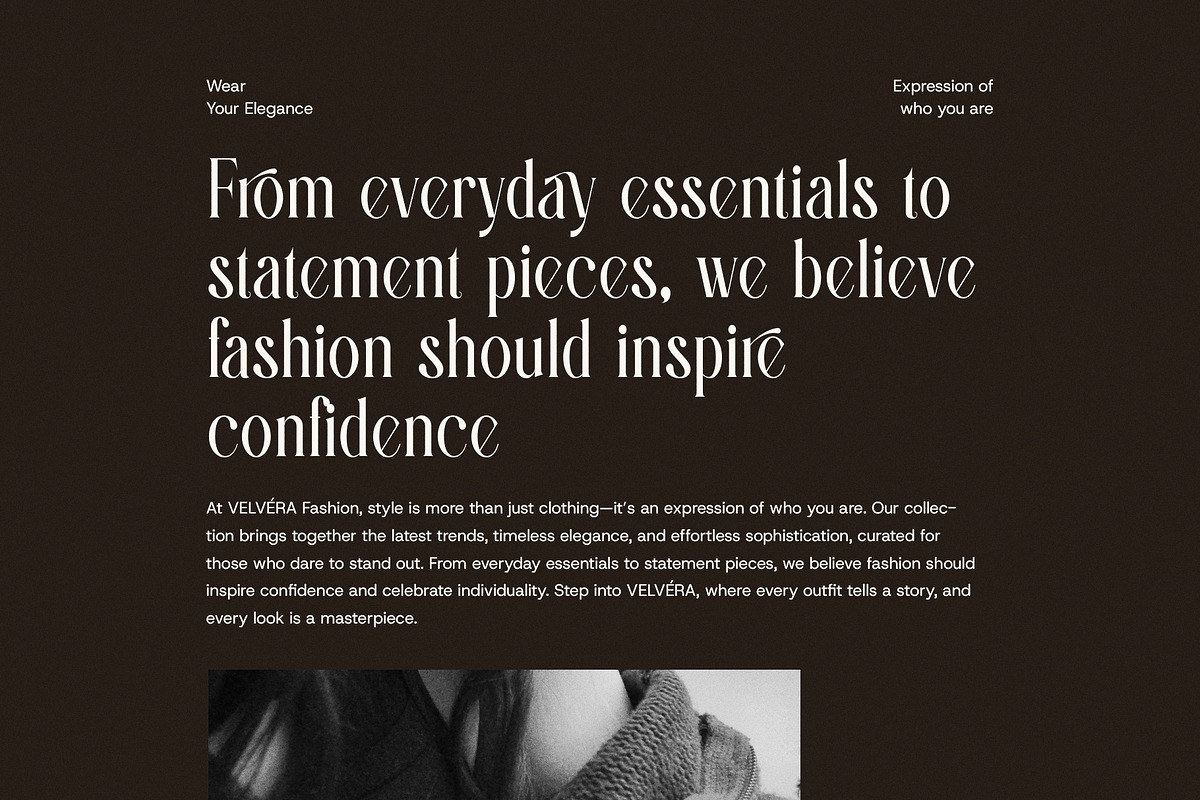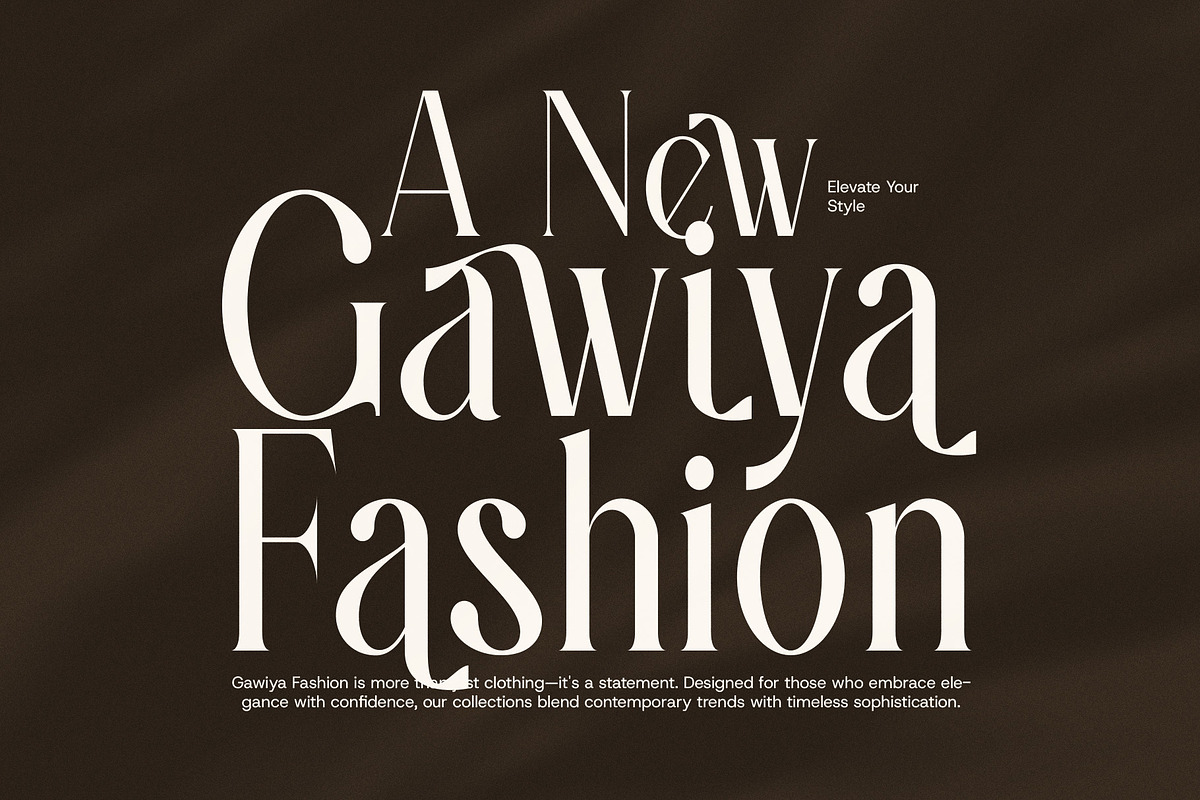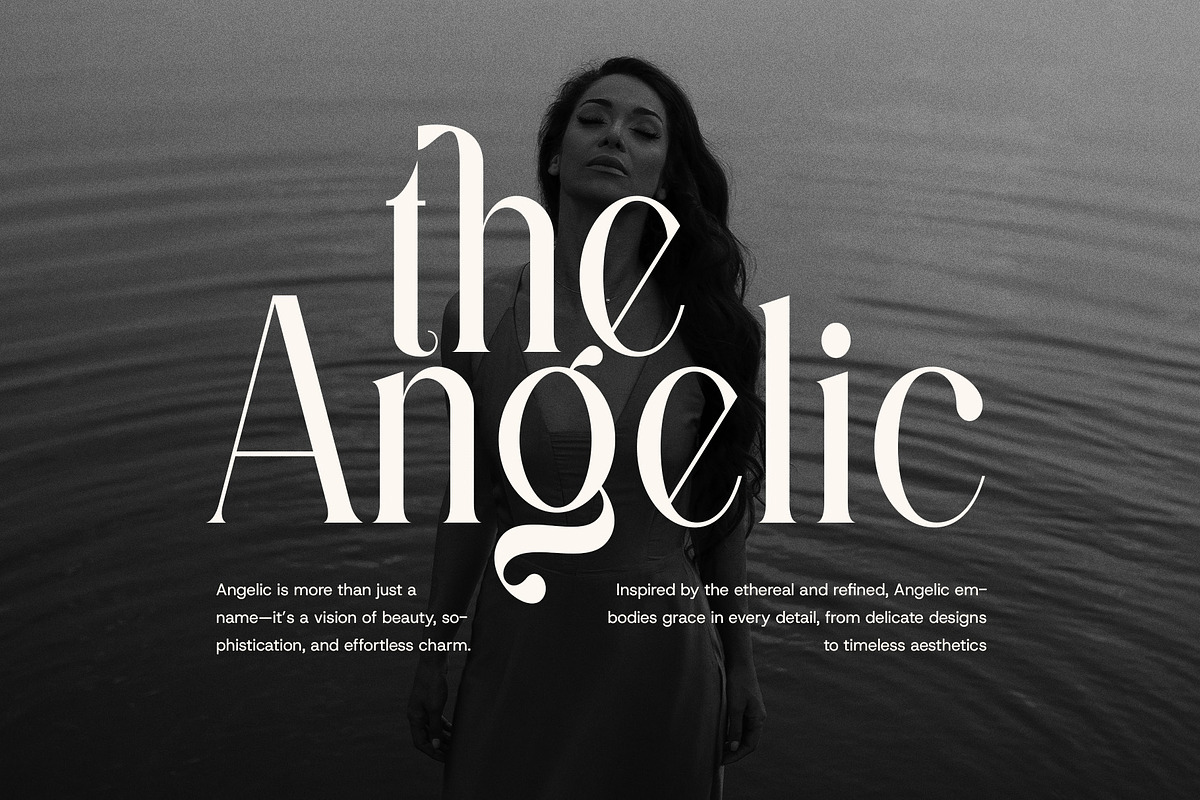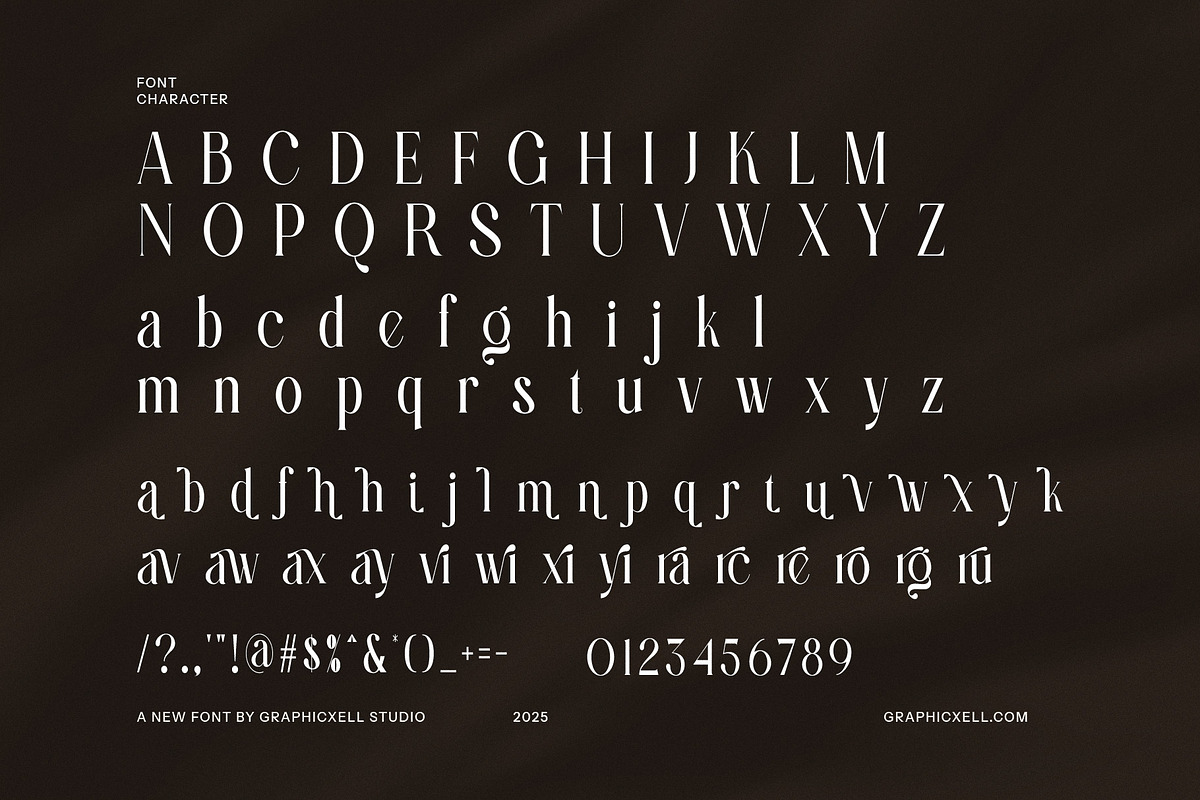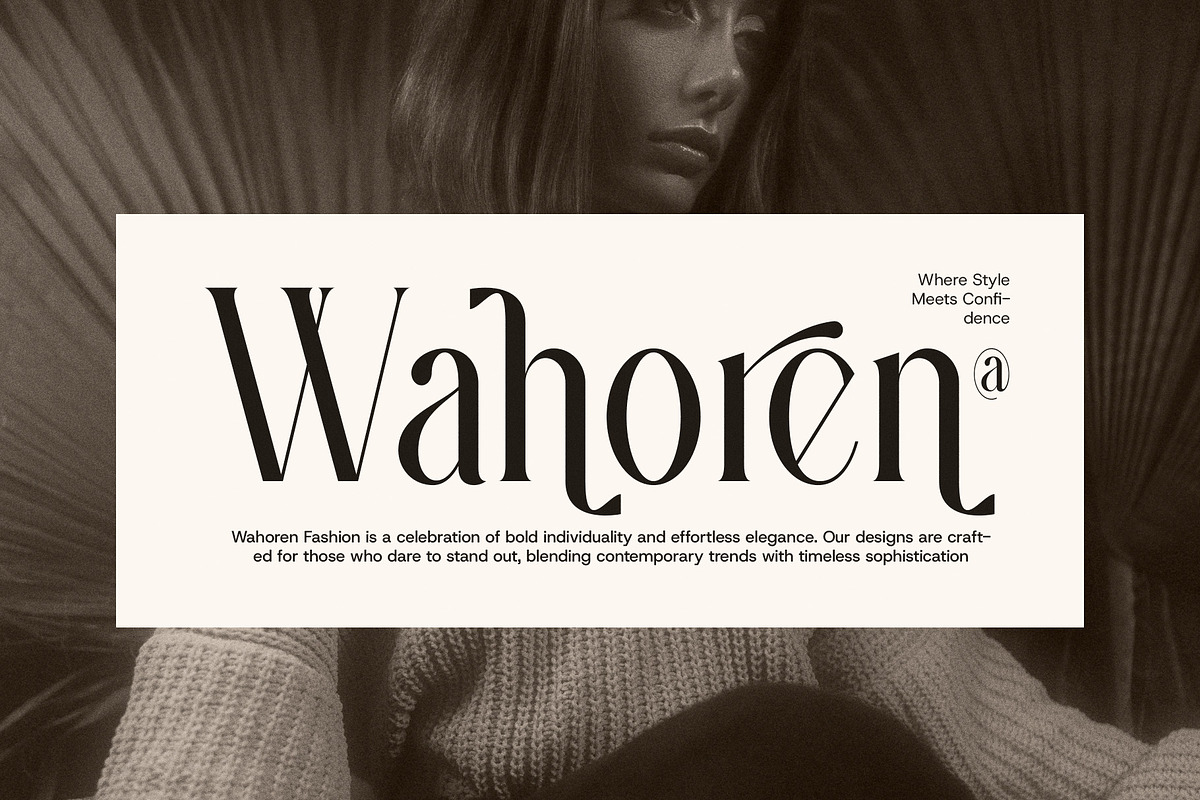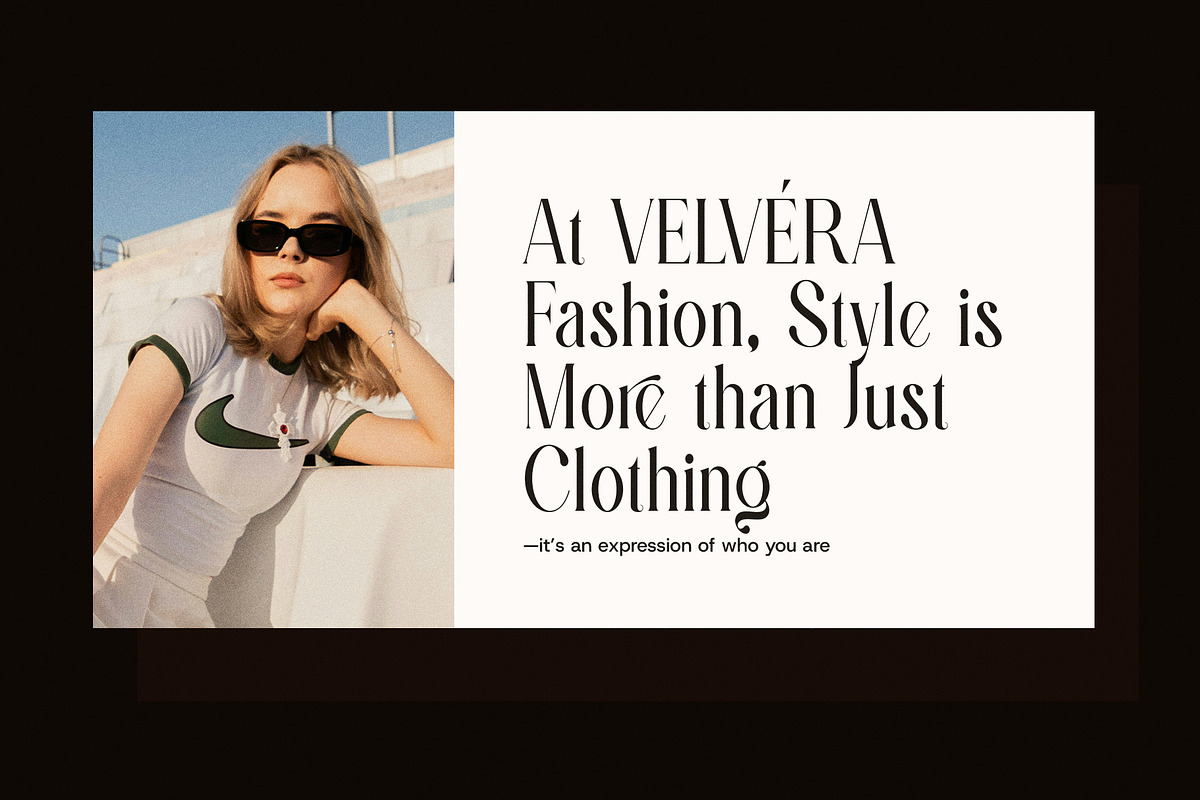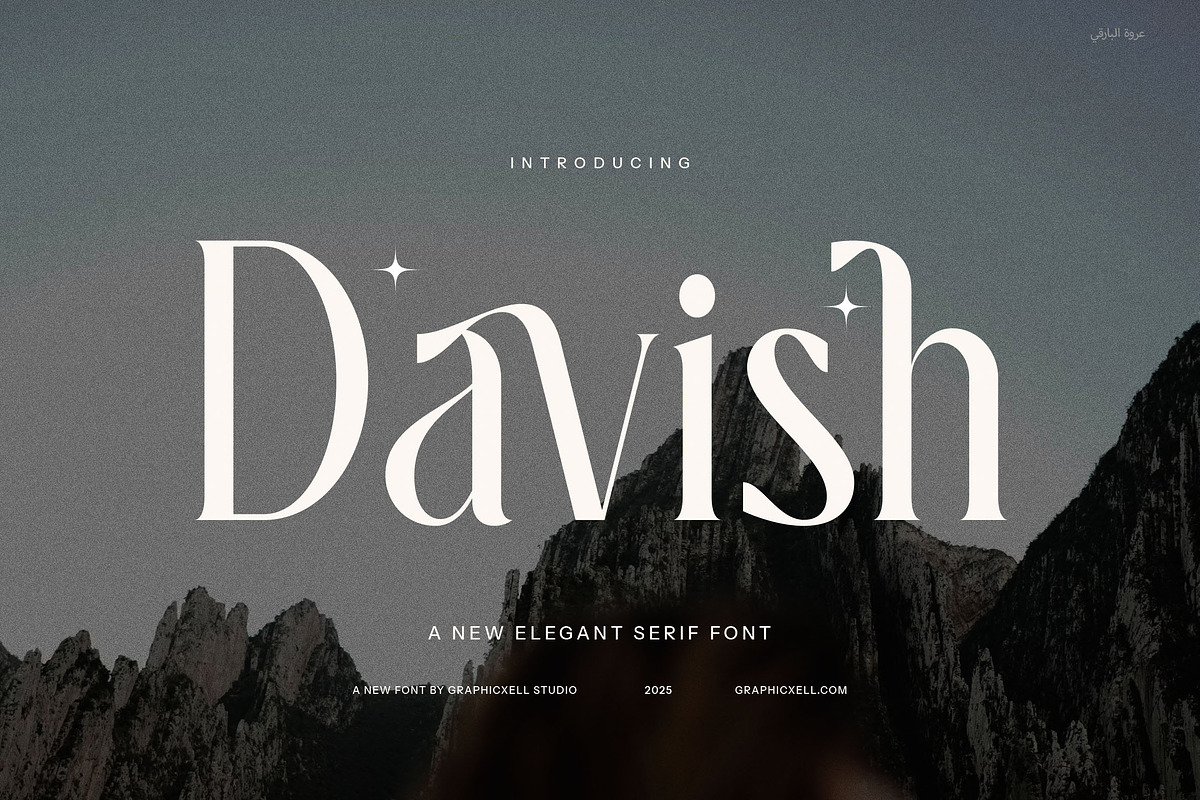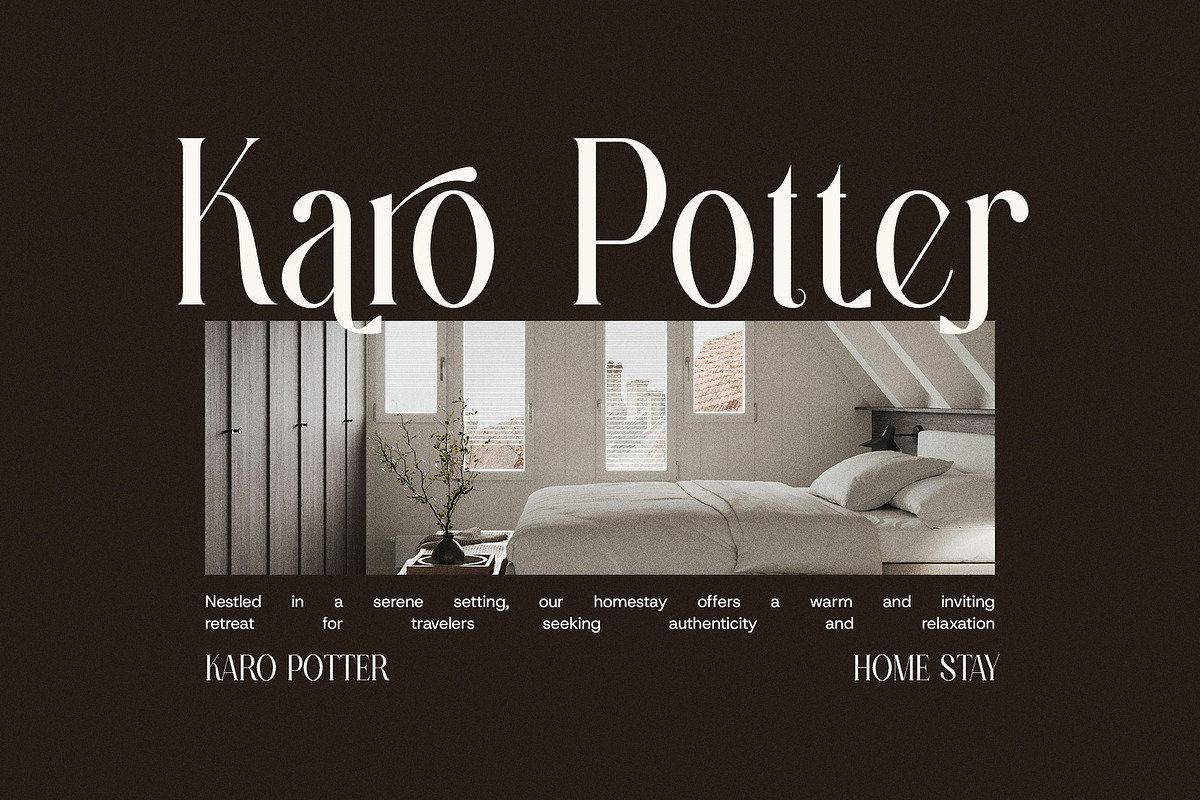
Davish Elegant Serif Font
Davish Elegant Serif Font is a refined and sophisticated typeface that merges modern aesthetics with timeless charm. Designed for those who appreciate elegance in every detail, this serif font features graceful curves, balanced proportions, and a distinctive presence that enhances any creative project.
With its sleek lines and subtle sophistication, Davish is perfect for luxury branding, high-end packaging, editorial layouts, and stylish website headers. Its exquisite letterforms, enhanced by delicate serifs and elegant ligatures, create a sense of exclusivity and professionalism, making it an excellent choice for fashion labels, upscale boutiques, premium food branding, and artistic advertisements.
Beyond its striking visual appeal, Davish ensures excellent readability and versatility. The seamless contrast between thick and thin strokes adds a touch of sophistication, allowing it to shine in both digital and print applications. Whether used in bold headlines or refined body text, this font adapts effortlessly to various design needs, offering a polished and contemporary feel.
Ideal for designers seeking a sophisticated yet approachable aesthetic, Davish Elegant Serif Font strikes the perfect balance between modern minimalism and classic beauty. Whether you're crafting a luxurious brand identity, designing an elegant invitation, or elevating a magazine layout, Davish adds a distinguished touch that commands attention.
Unlock the essence of timeless elegance with Davish, a font that transforms words into visual masterpieces. Elevate your designs with its graceful presence and make a lasting impression today.